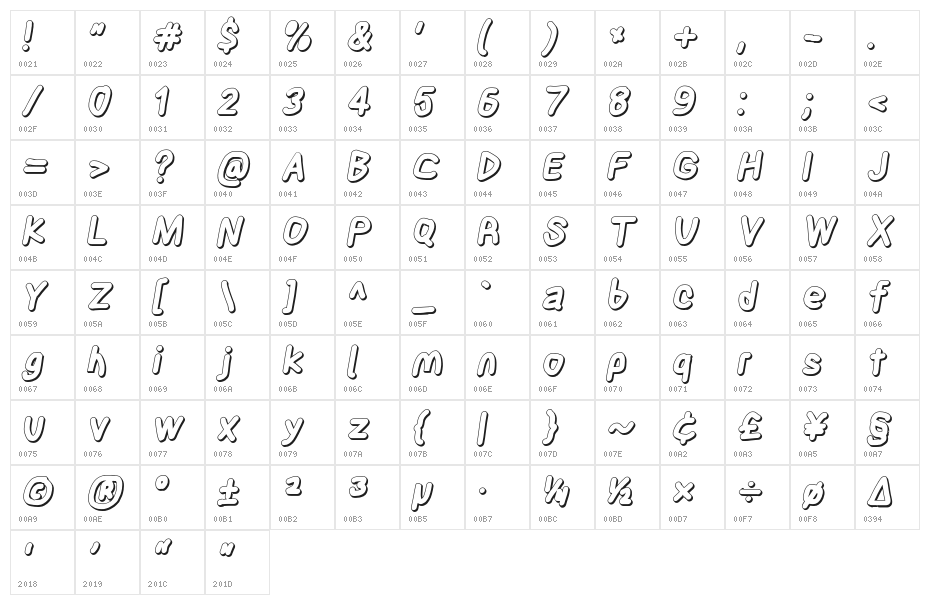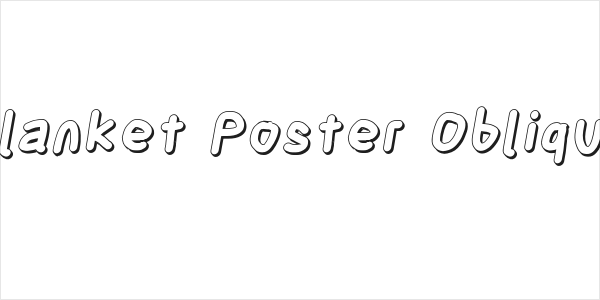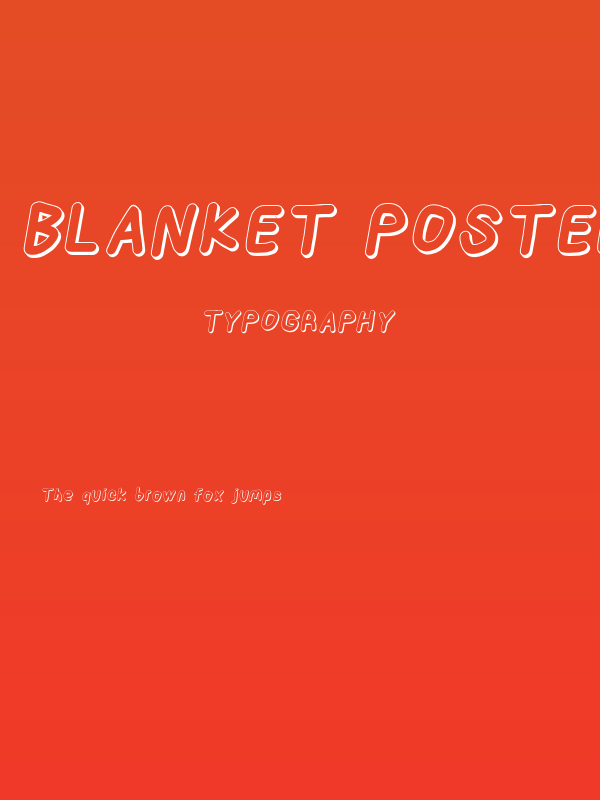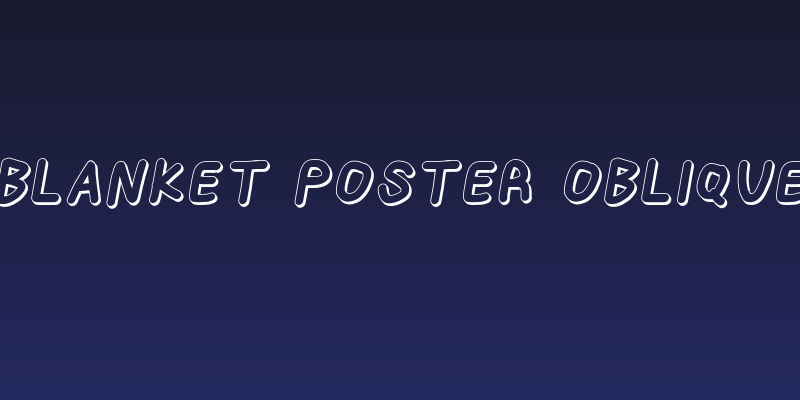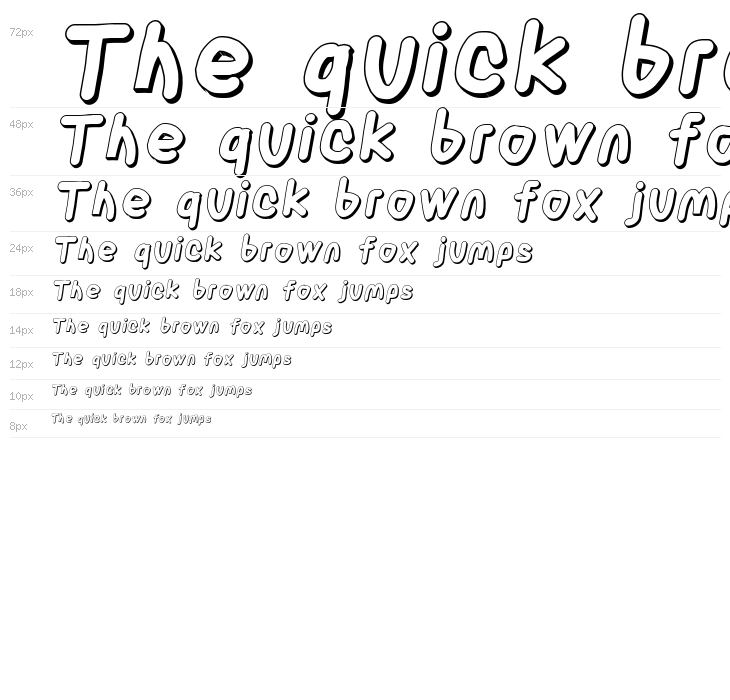
Blanket Poster Oblique Font
Blanket Poster Oblique Description
This playful and bold font features a unique oblique style with a thick outline that gives it a three-dimensional appearance. The characters are rounded and slightly inflated, creating a fun and approachable look. The uppercase and lowercase letters maintain a consistent style, with smooth curves and a slight slant to the right. The numbers and special characters follow the same design principles, ensuring uniformity across all elements. This font's distinct style makes it suitable for projects that require a lively and energetic feel.
| Overall Style | Playful, Fun, Energetic |
| Use Case | Headlines, Posters, Branding |
| Proposed Projects | Ideal for children's book covers, playful posters, party invitations, and branding for fun-oriented products. |